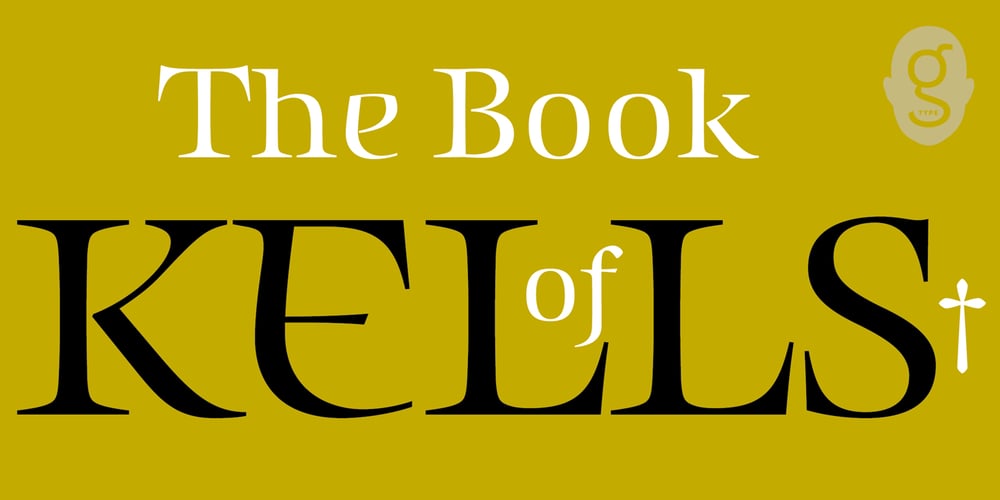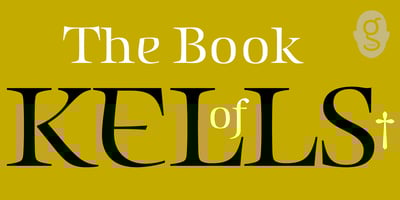
Amulet
Amulet font
Amulet Font Family was designed by Nick Cooke and published by G-Type. Amulet contains 1 styles and family package options. Amulet evolved after a trip to Dublin, Ireland. It has a Celtic calligraphic influence which must have subconsciously come from looking at ancient manuscripts and the Book of Kells in Trinity College.